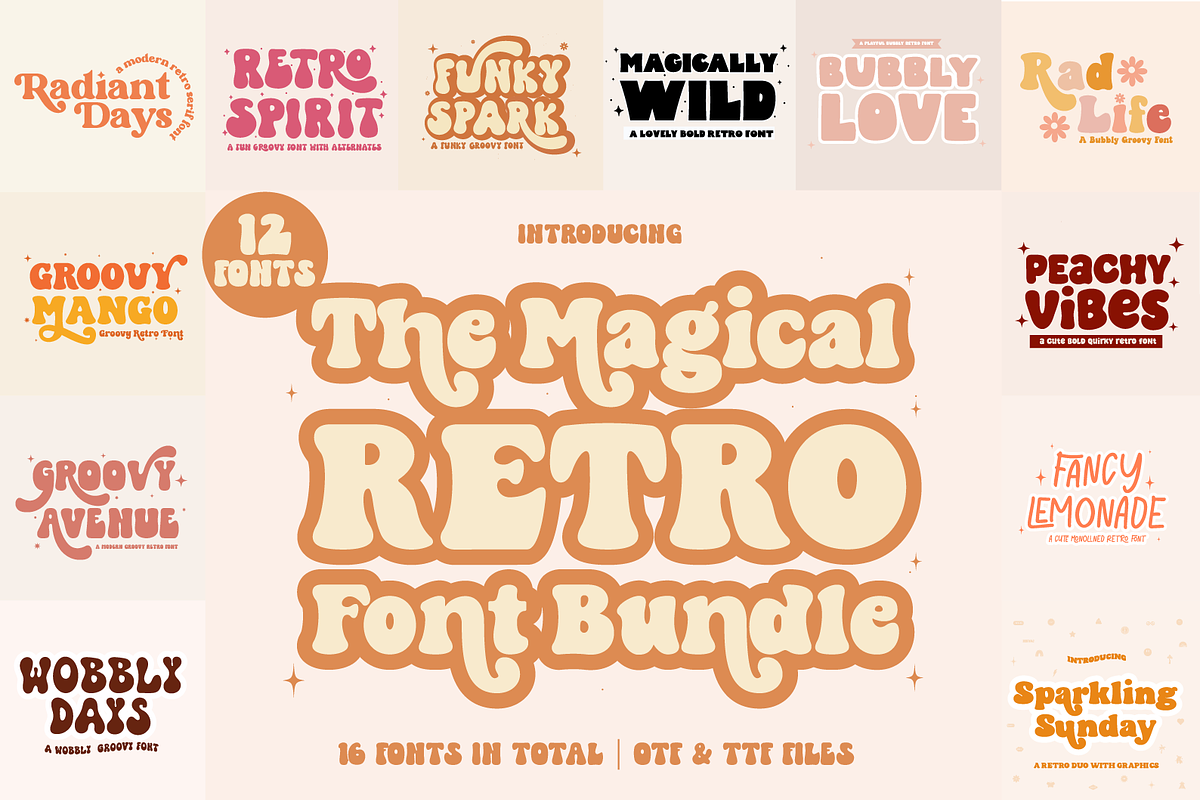
The Magical Retro Font Bundle Free Download
Please note, you must purchase this font for commercial use. However, you can easily download The Magical Retro Font Bundle Free Download for personal use and testing purposes. The Magical Retro Font Bundle is a vibrant and nostalgic collection of fonts that brings the charm of vintage design into the modern era. Perfect for retro-themed projects, posters, branding, social media graphics, and more, this bundle includes a variety of unique typefaces that evoke the fun and creativity of the past. Whether you're working on a 70s-inspired design, a psychedelic project, or an old-school promotional piece, The Magical Retro Font Bundle Free Download offers a perfect blend of boldness and playfulness. Download The Magical Retro Font Bundle Free Download today and explore its diverse and exciting range of fonts before opting for a commercial license.